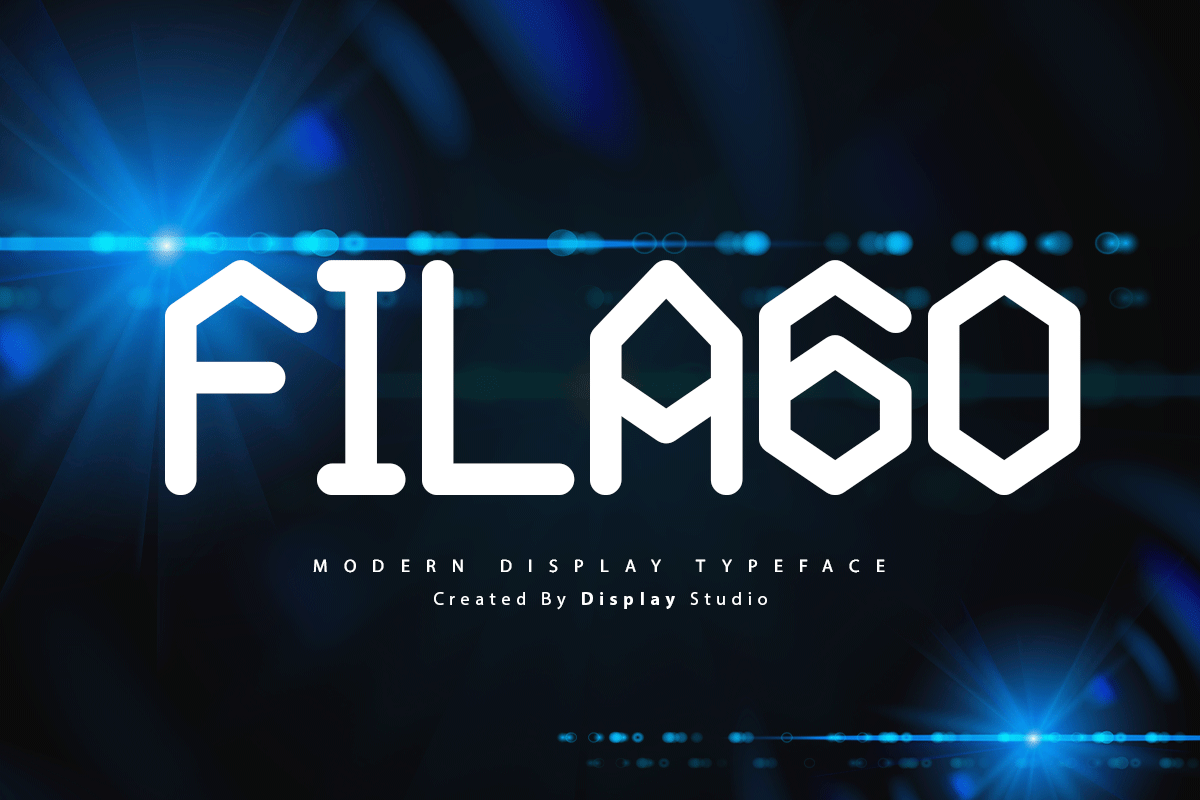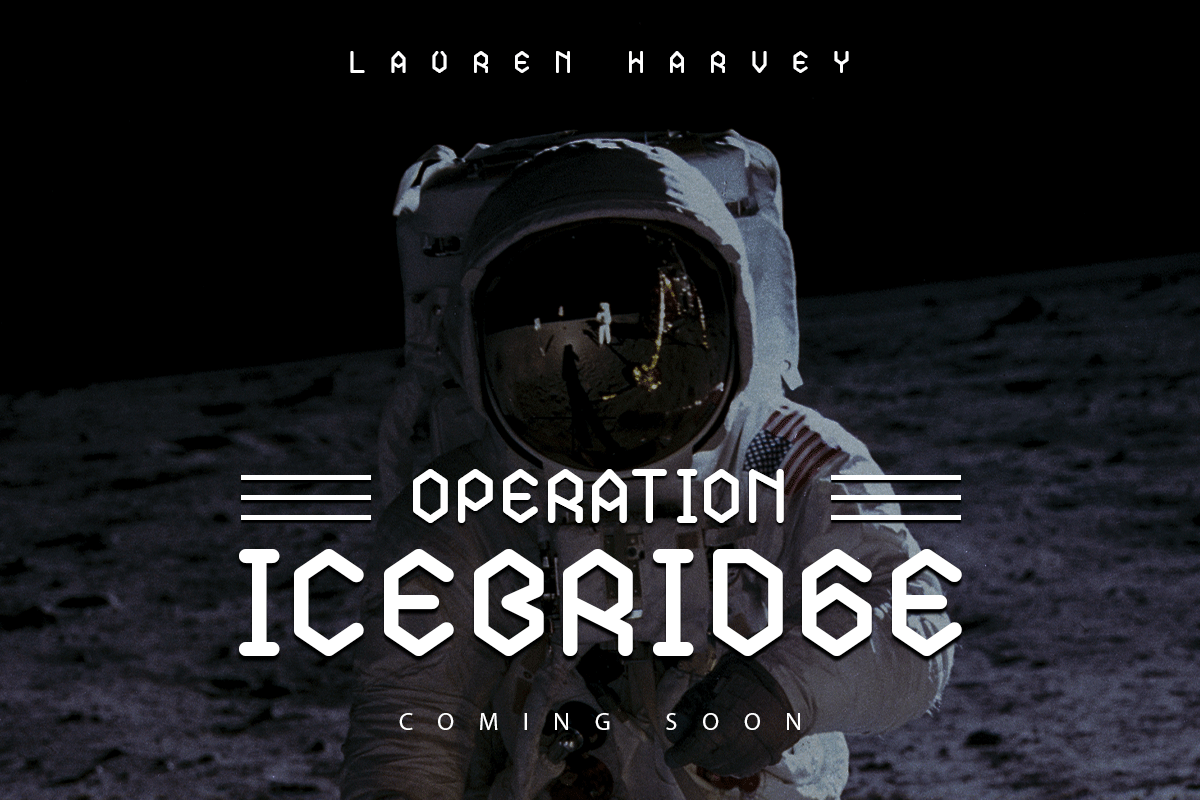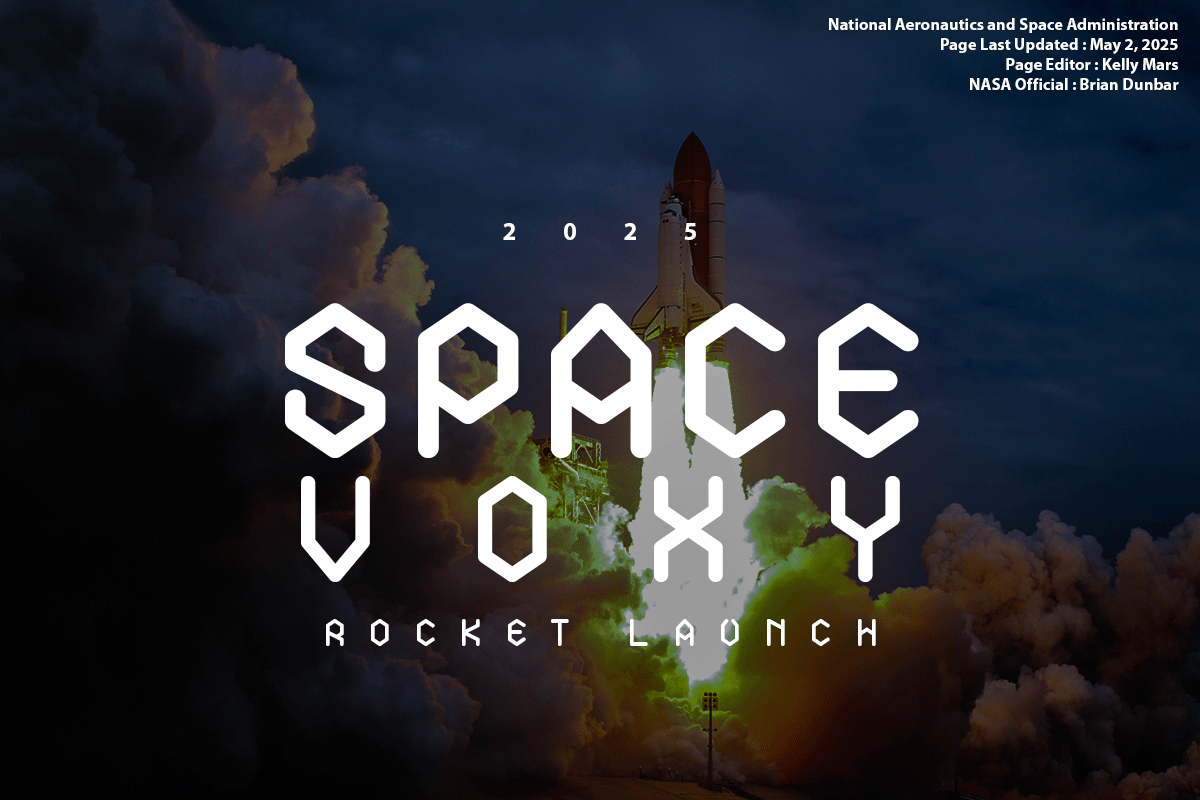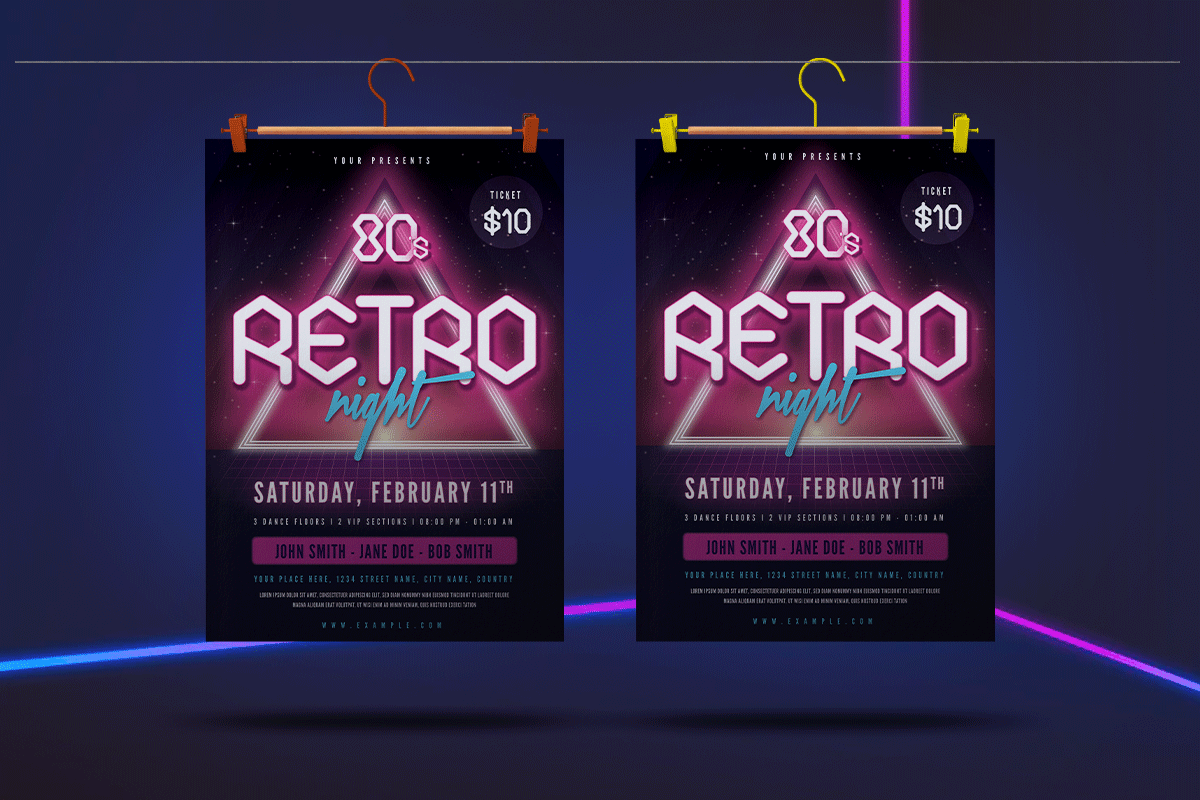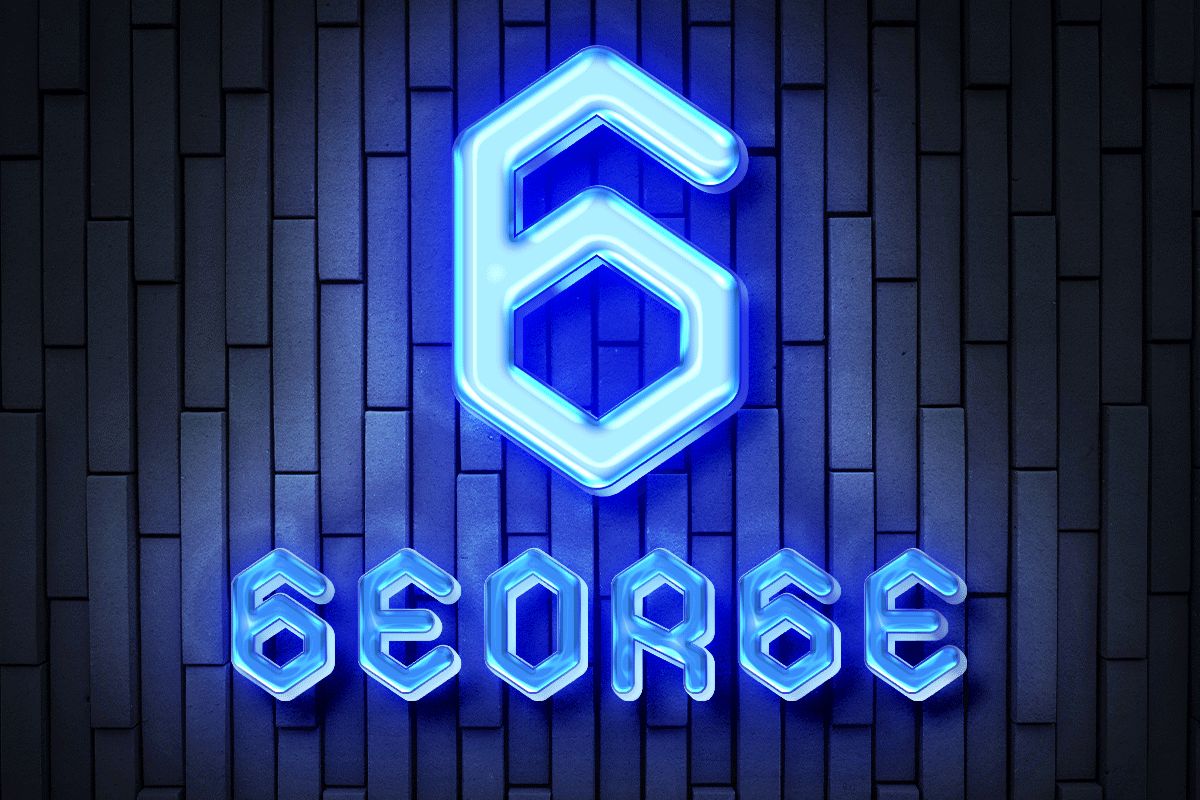
Filago Free Font
Filago Free Font is a cool and robotic styled display font. It works great for various creations that require a futuristic, high-tech touch. The only limit in employing this font is your imagination. This free typeface was designed by a talentedΒ Display Studio. If you like it don’t forget to check out the full version.